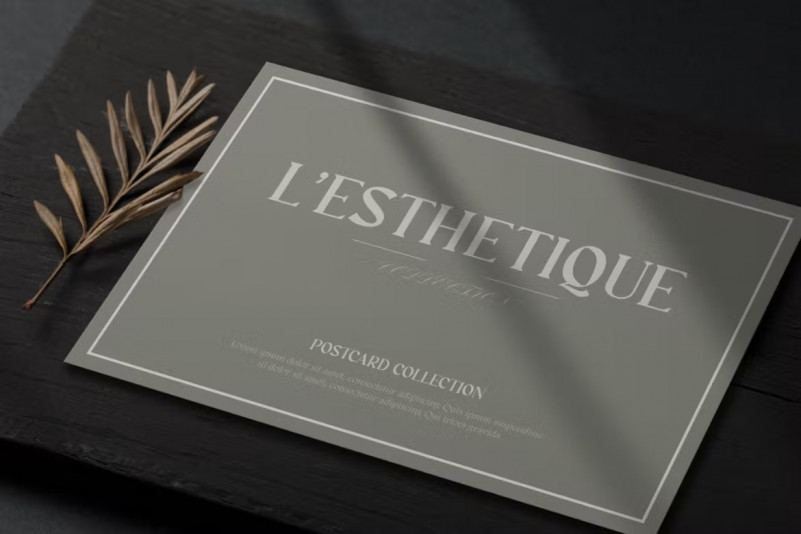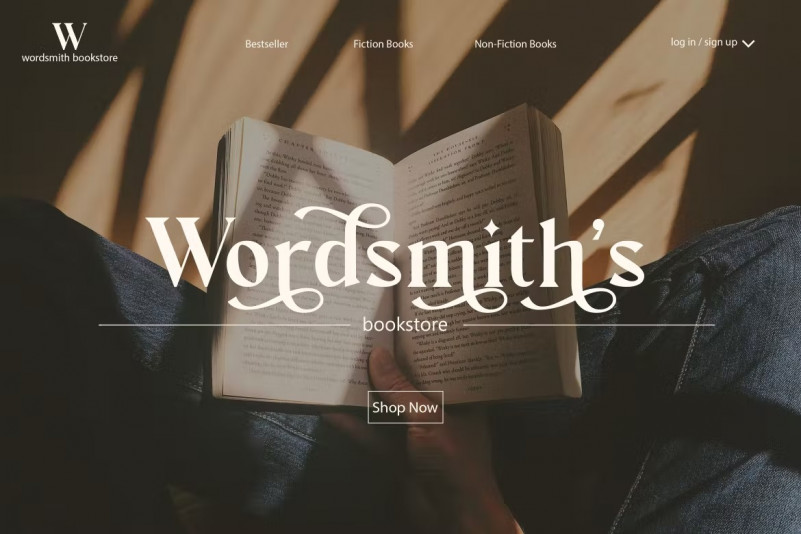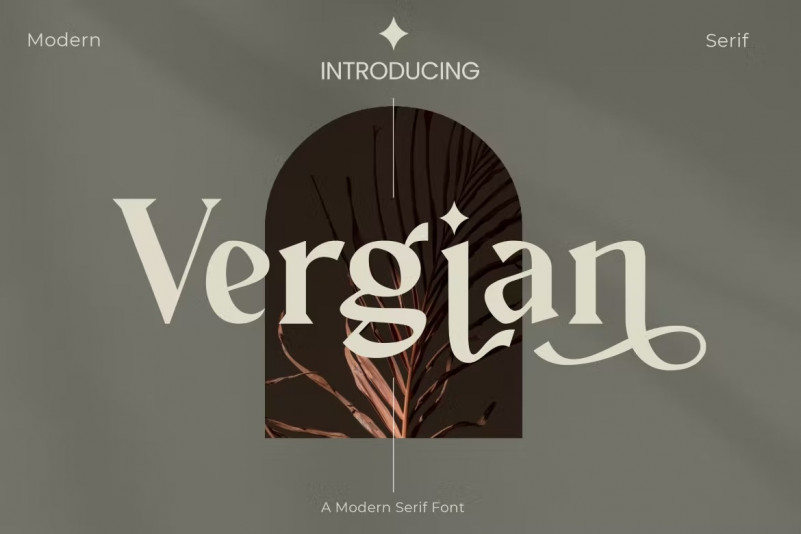
Vergian Font
Meet Vergian , a modern serif typeface .
Clean and easily readable, Vergian is the ideal choice for any text that needs to stand out. Take a look and see the difference a good font can make.